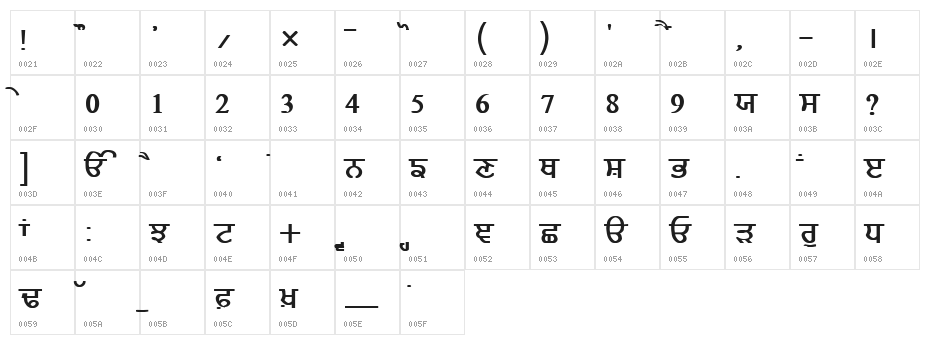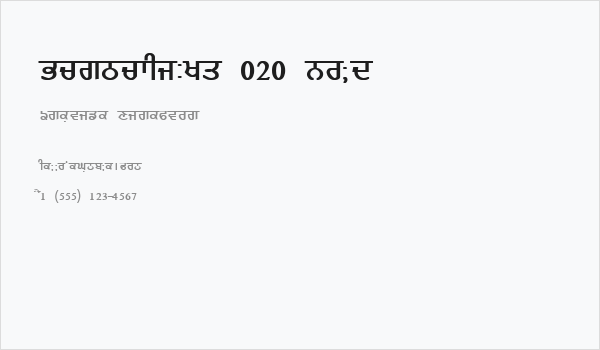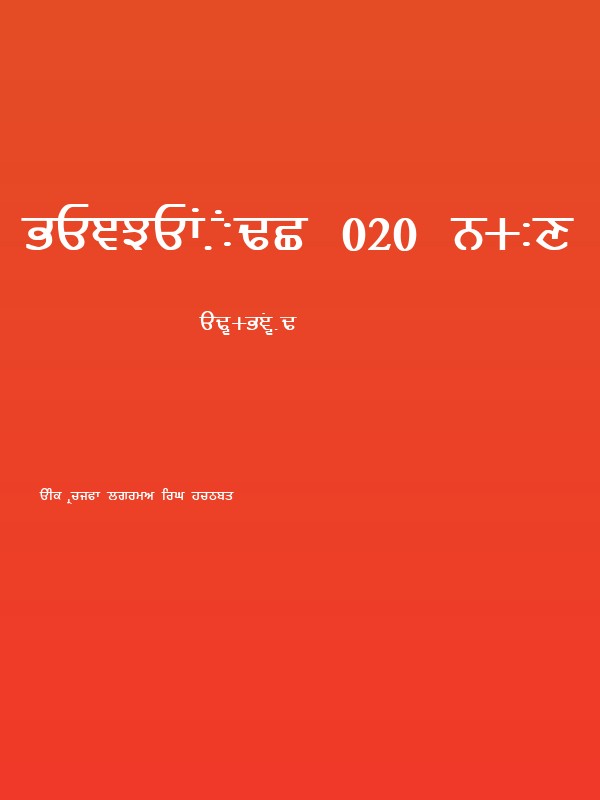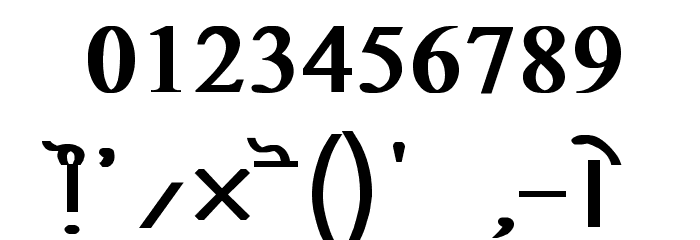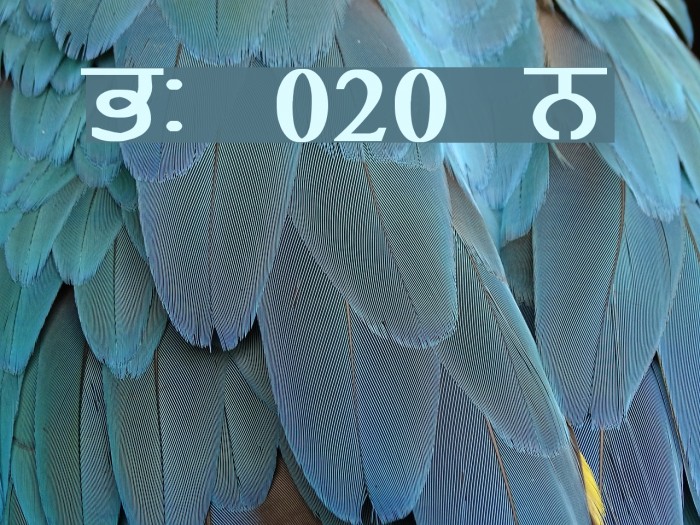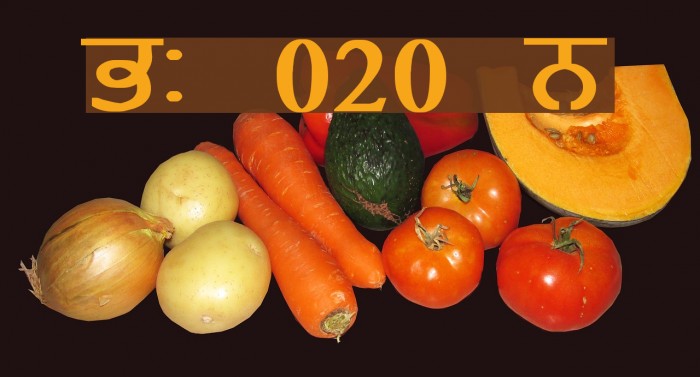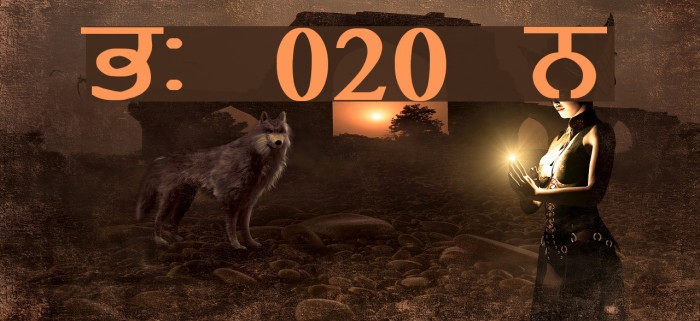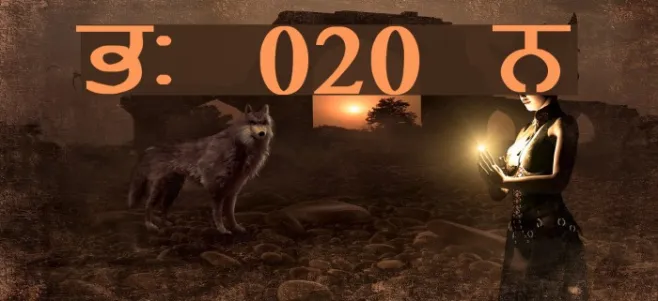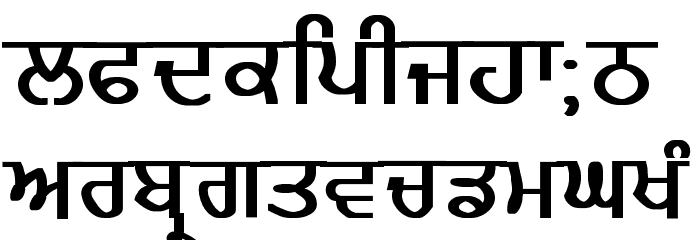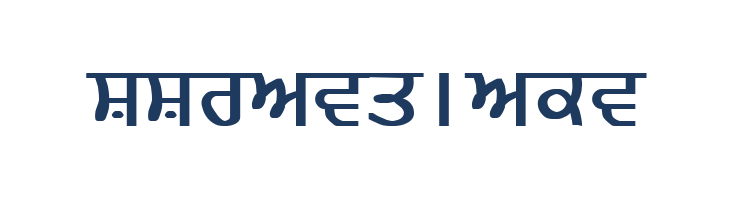
GurmukhiLys 020 Bold Font
GurmukhiLys 020 Bold Description
This font features the Gurmukhi script, characterized by its bold and strong presence. The characters are well-defined with a consistent stroke weight, providing a clear and legible appearance. The numerals are distinct and align well with the script's style, maintaining uniformity across the font. Special characters are included, enhancing the font's versatility for various uses. The overall design is modern yet retains traditional elements of the Gurmukhi script, making it suitable for both contemporary and classic applications.
| Use Case | Headlines, Body text, Signage |
| Proposed Projects | Ideal for educational materials, signage, and digital content requiring Gurmukhi script. |